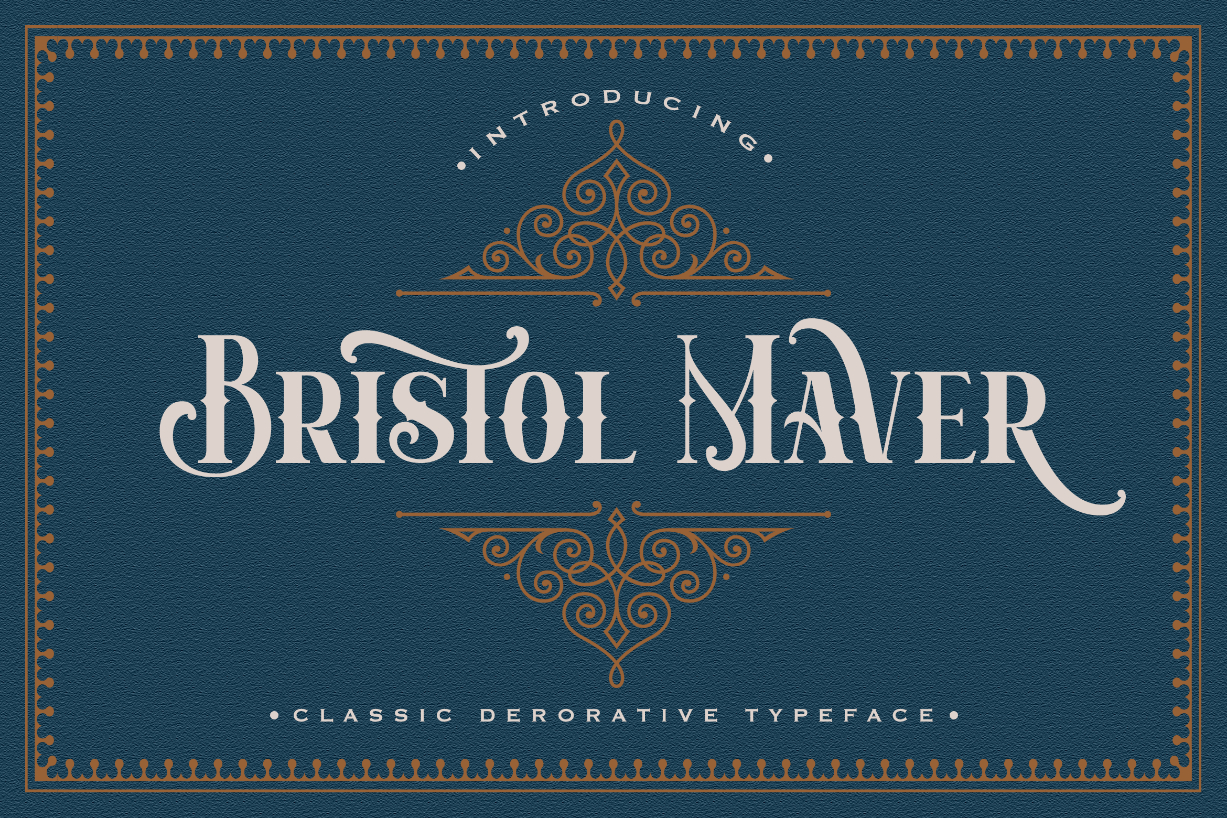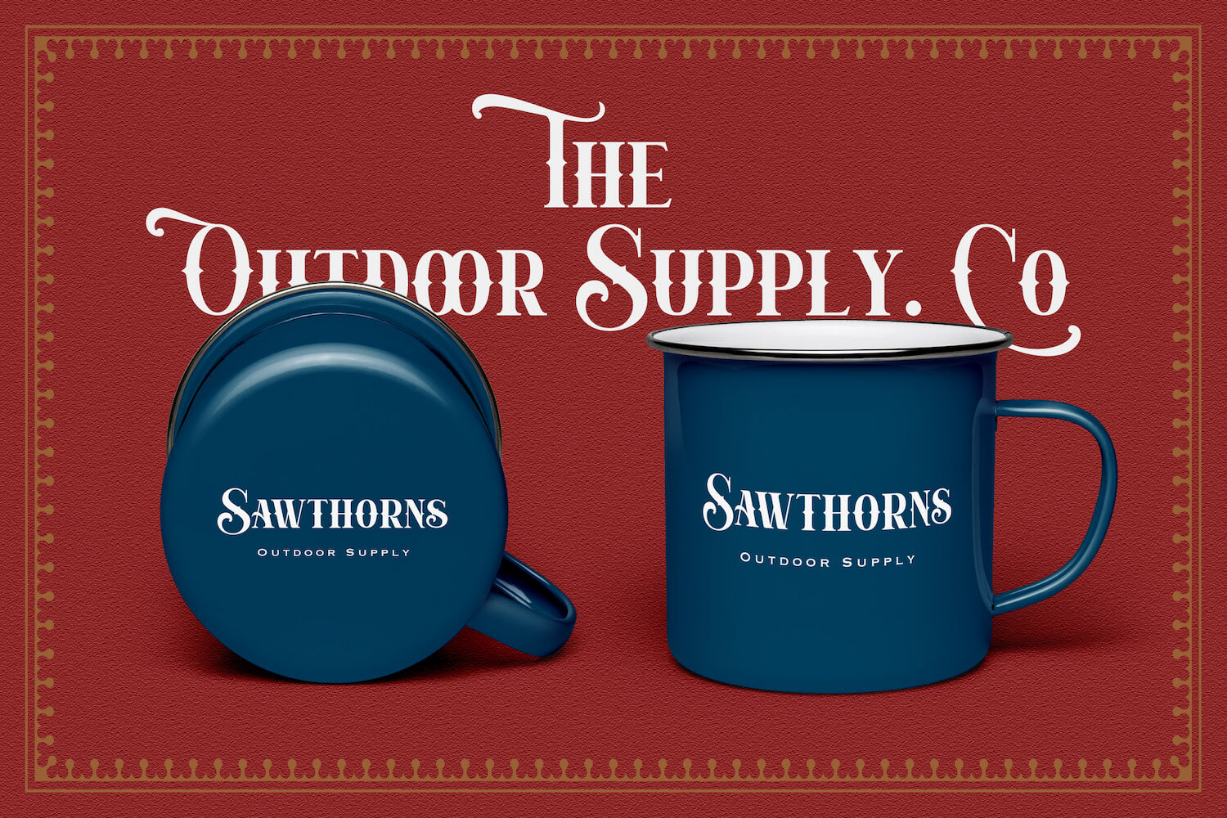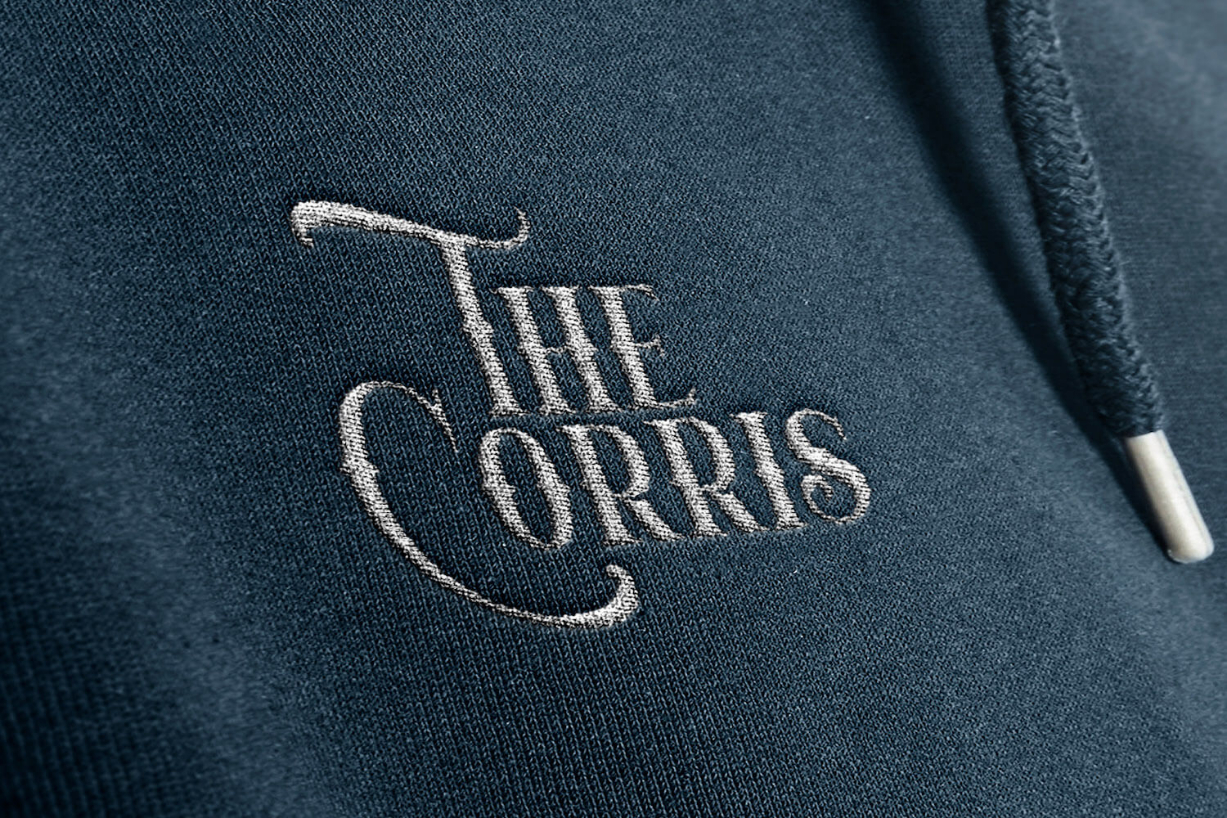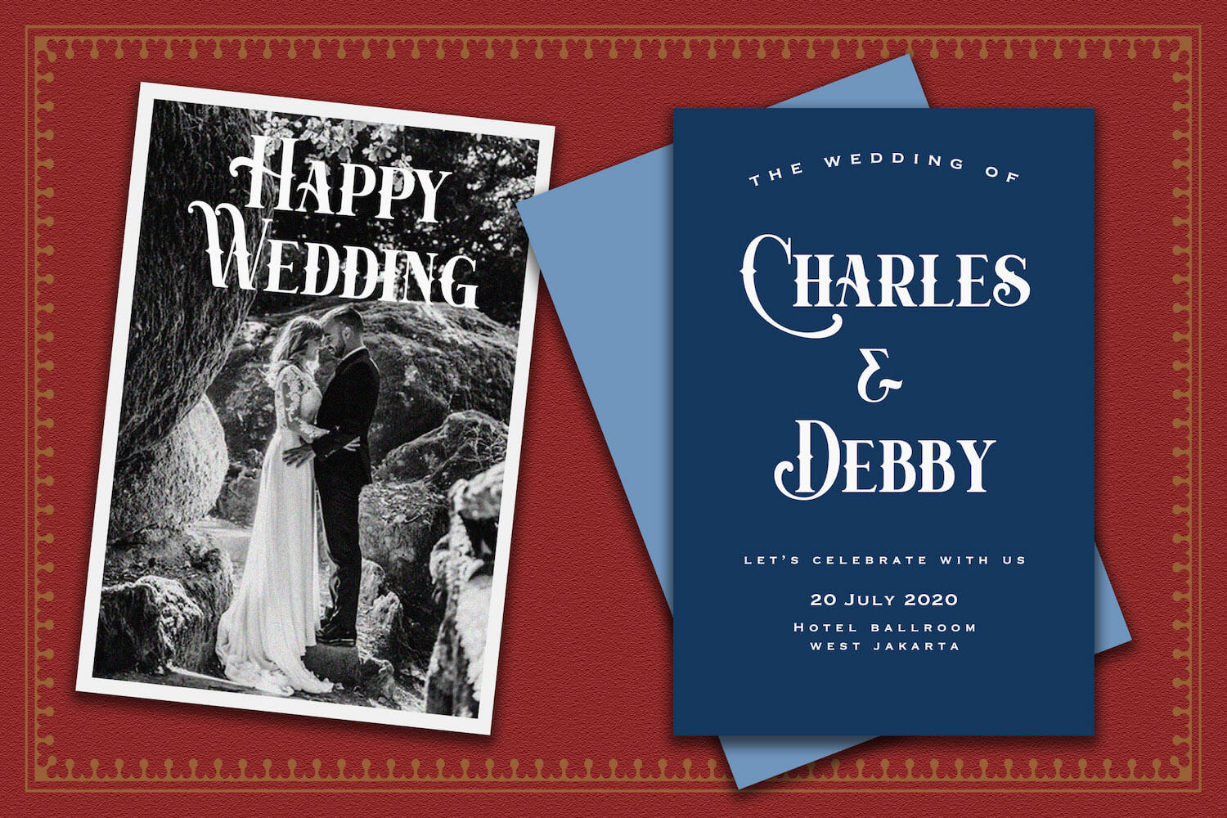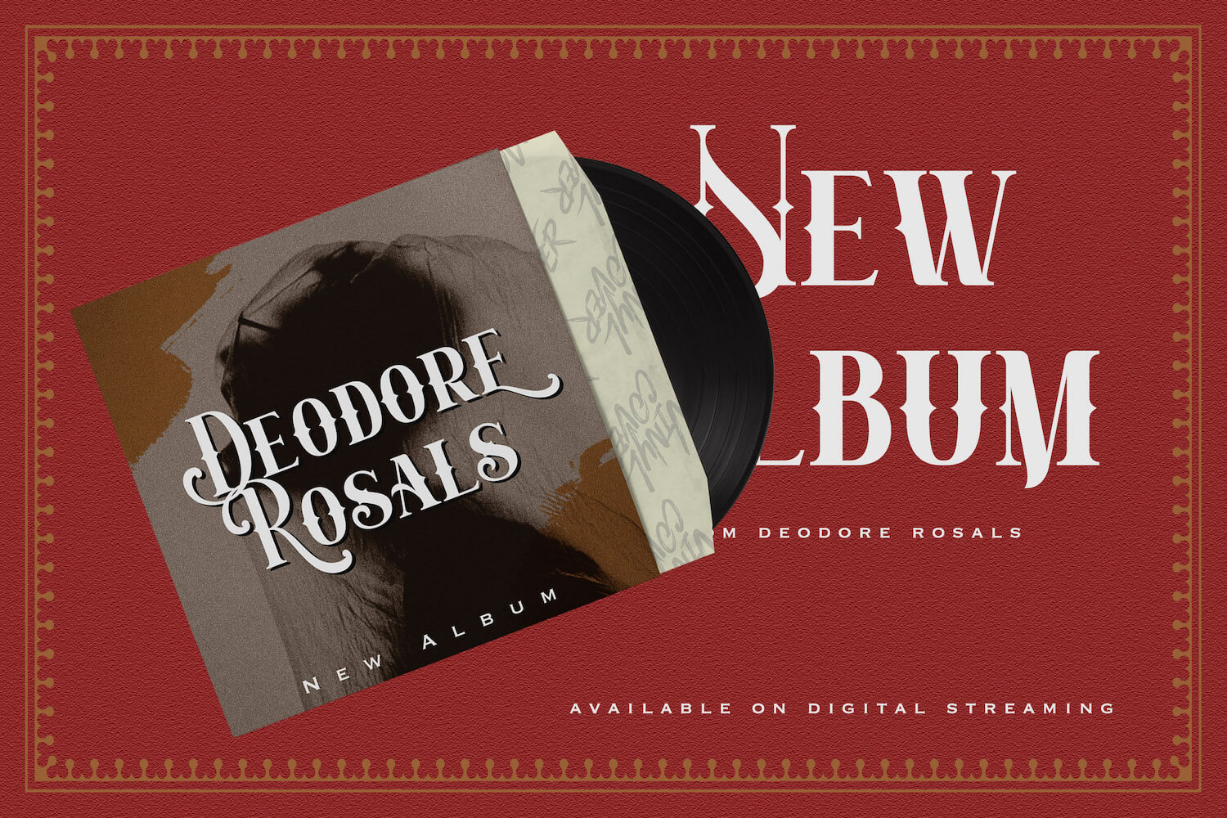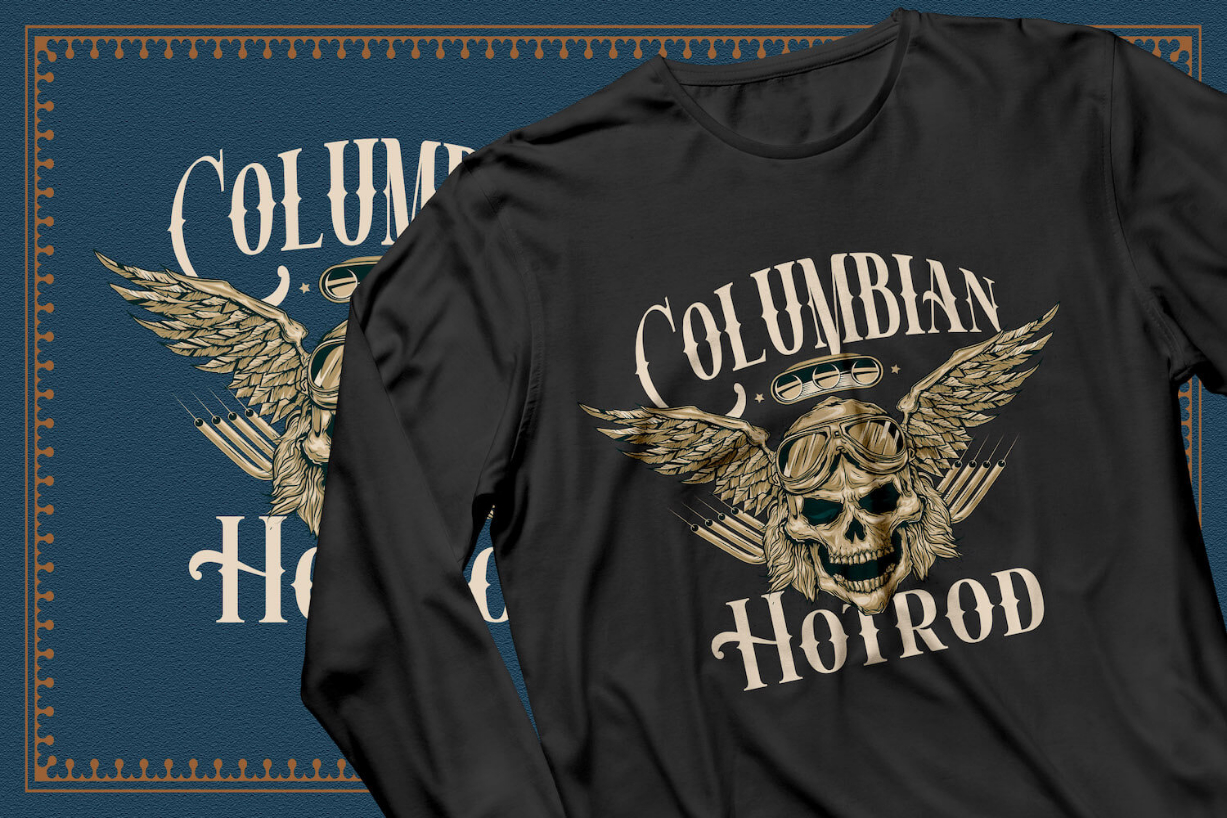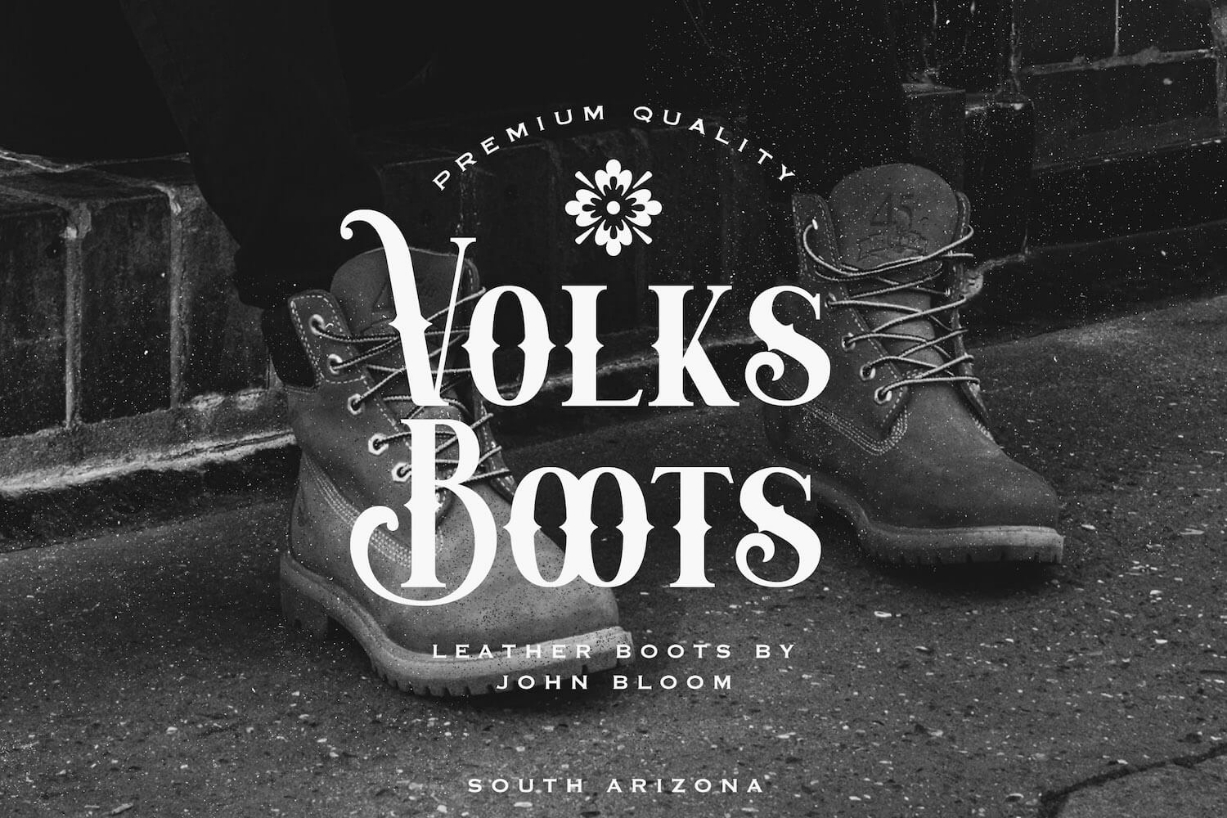
Bristol Maver Font
About Bristol Maver Font
Bristol Maver is a stylish blackletter font. This typeface will look truly outstanding in a wide range of contexts.